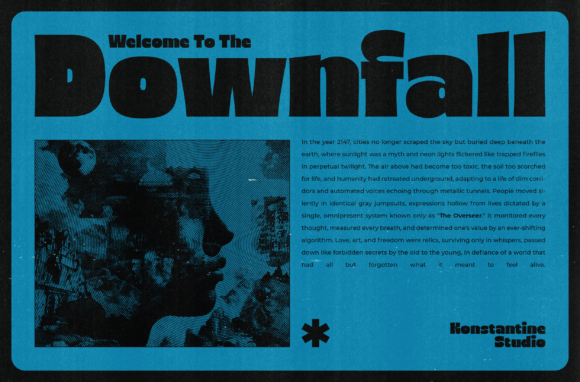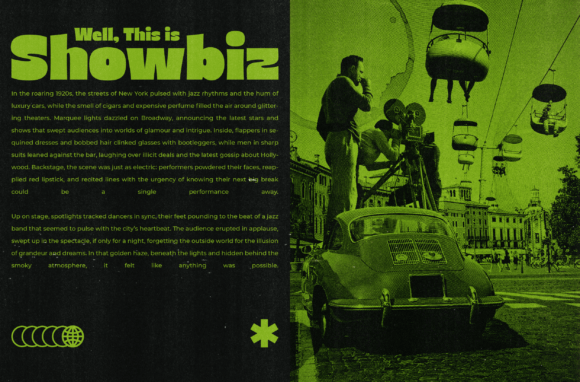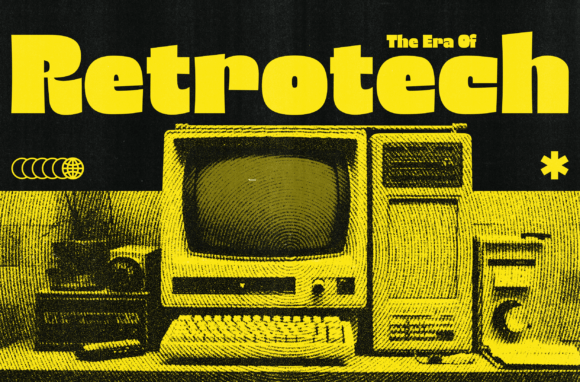
Unleash the Power of Kradix Font
Have you ever stared at a blank canvas, wondering where to start your next creative project? For designers, this feeling is all too familiar. But what if you had the perfect tool to spark your imagination? Enter the Kradix Font, a game-changing design resource that’s about to revolutionize the way you think about typography.
Imagine a font that combines the bold, eye-catching visuals of retro movies with the modern clarity of contemporary design. That’s exactly what you get with the Kradix Font – a high-quality, versatile font that’s perfect for posters, branding, packaging, and more. With its transparent background and striking style, this font is sure to turn heads and make your message unforgettable.
Key Features of Kradix Font
- High-quality design resource for creative projects, suitable for digital use
- Unique, modern design with a transparent background, ideal for minimalist designs
- Includes a range of glyphs and characters for flexibility in design
Honest Review: Kradix Font
I recently stumbled upon the Kradix Font while searching for a high-quality font to use in a creative project. As a designer, I was excited to see what this free download had to offer.
The first thing that caught my attention was the sleek and modern design of the font. It’s perfect for anyone looking to add a touch of sophistication to their design. ✨
Here are some of the features that I like about the Kradix Font:
- Transparent background, making it easy to use in various design scenarios
- Available in a range of sizes, making it versatile and easy to use
However, I do have a few limitations to note:
- Only available in a limited range of styles (e.g. bold, italic, etc.)
Overall, I was impressed with the Kradix Font and would recommend it to designers looking for a high-quality, free font to use in their creative projects. ⚠️ Just be aware of the limitations mentioned above.
Tips for Getting the Most Out of Kradix Font
To get the most out of the Kradix Font, use it in conjunction with other high-quality design resources. Experiment with different font sizes, colors, and styles to create unique and eye-catching designs.
The Kradix Font is perfect for a variety of design projects, including:
- Brochures and flyers
- Social media graphics and ads
- Presentations and documents